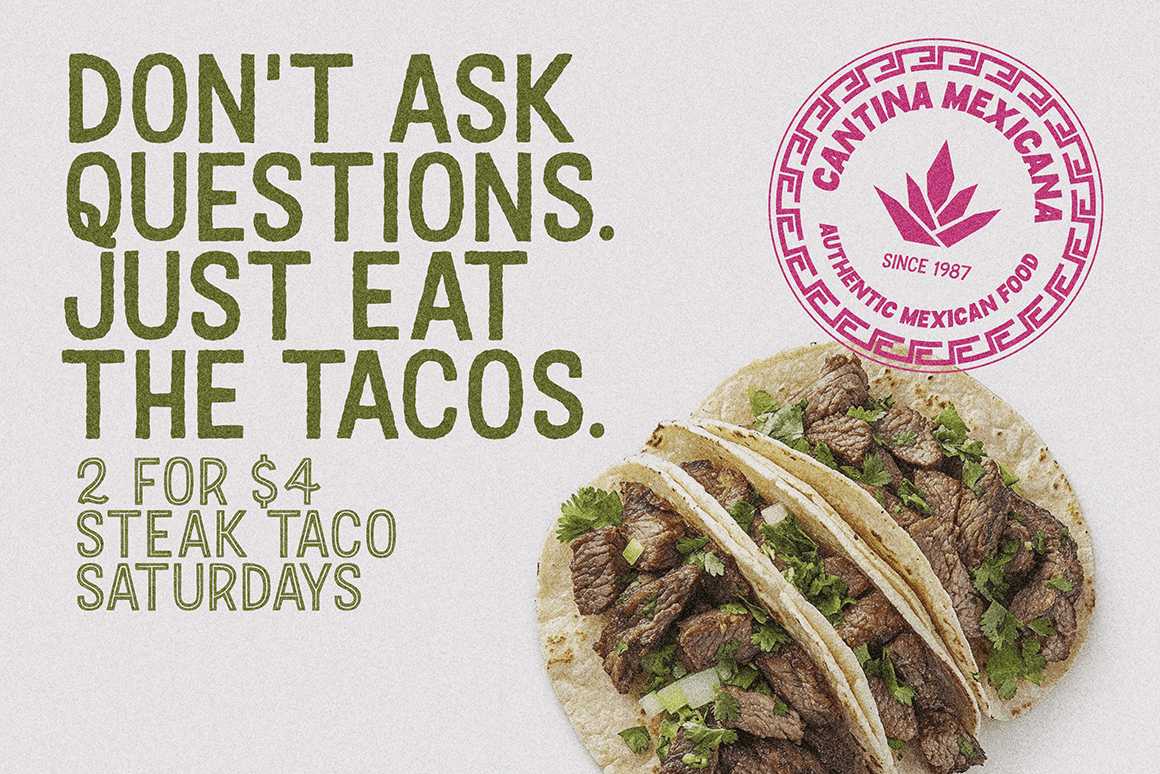
Pacific Coast Highway | Retro Font Family
Looking for a clean, magazine-ready typeface with retro vibes?! Well, I gotcha covered. This classic, layered set of 12 typefaces are perfect for large-scale print. Stack, overlay and recolor for a cool retro effect on ads, magazines, editorials, packaging, branding, books, quotes and more!